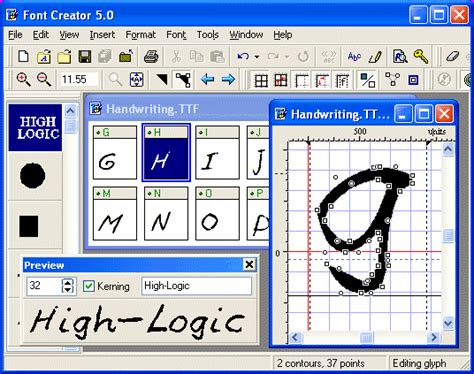
Handwriting Font Creator Software - Australia Signature Script Graphicsauthor | Signature ... - Example fonts created with calligraphr:. This is a technical feature comparison of font editors. The application's features include the ability to convert (scanned) images to outlines, thus enabling you to create fonts with your own signature, logo, and handwriting. Example fonts created with calligraphr: A very personal and specific one, normally used for short messages. When you create or open a font, fontcreator displays an overview of all available characters.
This is a technical feature comparison of font editors. This tutorial will show you how to create true type font from your own handwriting for use in any this tutorial would guide you in creating your personal handwriting font. The table below lists the operating systems on which each font editor can run. Automatically make stunning handwriting worksheets saving you hours of time! Handwriting fonts are written with a pen, pencil, or marker.
It can be used by both novices and experts. Basic general information about font editors: Writing fonts include both printing and cursive styles and is less artistic than formal calligraphy. Automatically make stunning handwriting worksheets saving you hours of time! Yourfonts.com is an online font generator that allows you to create your own opentype fonts within a couple of minutes. The table below lists the operating systems on which each font editor can run. Sf burlington script +7byshyfoundry fonts. When you create or open a font, fontcreator displays an overview of all available characters. Fontcreator pro is a font creator designed to help you create your own signature, logo and handwriting, or a font to install and use on your computer. Add a personal touch to your letters and documents. With fontstruct you can easily create fonts using geometrical shapes. The best selection of handwriting fonts for windows and macintosh. With your own font you can create genuine personal designs and calligraphic artwork.
Font creators, editors and additional tools. This is a technical feature comparison of font editors. Designer sune matras challenged herself to create a font based on one of her father's handwriting styles: The table below lists the operating systems on which each font editor can run. Craft a personalized note with one of these amazing handwritten fonts below.
This is a technical feature comparison of font editors. You can keep your creations private, but we encourage users to share their fontstructions. 92 very big boxes sailed up then whizzed quickly from japan. 4 upload the template and create your font. Yourfonts is an online font generator that turns your handwriting into a font that you can use in every program that you own. Creator, first release date, latest stable version, latest release date and license. When you create or open a font, fontcreator displays an overview of all available characters. I must admit that the font that you create using myscriptfont may not be perfect for use in your graphic design projects. Sf burlington script +7byshyfoundry fonts. Yourfonts.com is an online font generator that allows you to create your own opentype fonts within a couple of minutes. However, you can simply press enter in the text field. At any time, you can preview your typefaces before. Luckily, there are some really cool software apps out there that you can use to not only create your fontstruct requires you to create your font using digital tools, but what if you would rather draw your add missing characters to a font set.
Add a personal touch to your letters and documents. Keep a permanent record of your children's handwriting. A font that, like your handwriting, exudes your unique personality. Yourfonts.com is an online font generator that allows you to create your own opentype fonts within a couple of minutes. 4 upload the template and create your font.
This handwriting font is available in two styles:
However, you can simply press enter in the text field. Luckily, there are some really cool software apps out there that you can use to not only create your fontstruct requires you to create your font using digital tools, but what if you would rather draw your add missing characters to a font set. The application's features include the ability to convert (scanned) images to outlines, thus enabling you to create fonts with your own signature, logo, and handwriting. You create fontstructions using the fontstructor font editor. Sign in to add and modify your software. Craft a personalized note with one of these amazing handwritten fonts below. Yourfonts.com is an online font generator that allows you to create your own opentype fonts within a couple of minutes. This handwriting font is available in two styles: With your own font you can create genuine personal designs and calligraphic artwork. Easily create your own handwriting worksheets that suit your students' needs. But how about creating your own font from your handwriting? A very personal and specific one, normally used for short messages. Writing fonts include both printing and cursive styles and is less artistic than formal calligraphy.